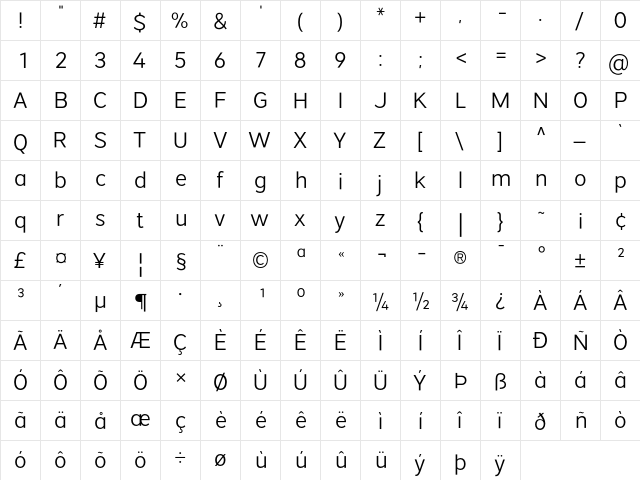
Vistol Sans Light Regular
| Designer | Sarwo Edi |
Design Context for Vistol Sans Light Typeface
Vistol Sans Light offers clean, dependable letterforms without strong stylistic allegiance, making it a practical choice for designers who need flexibility. Its slender proportions lend an understated elegance to any composition.